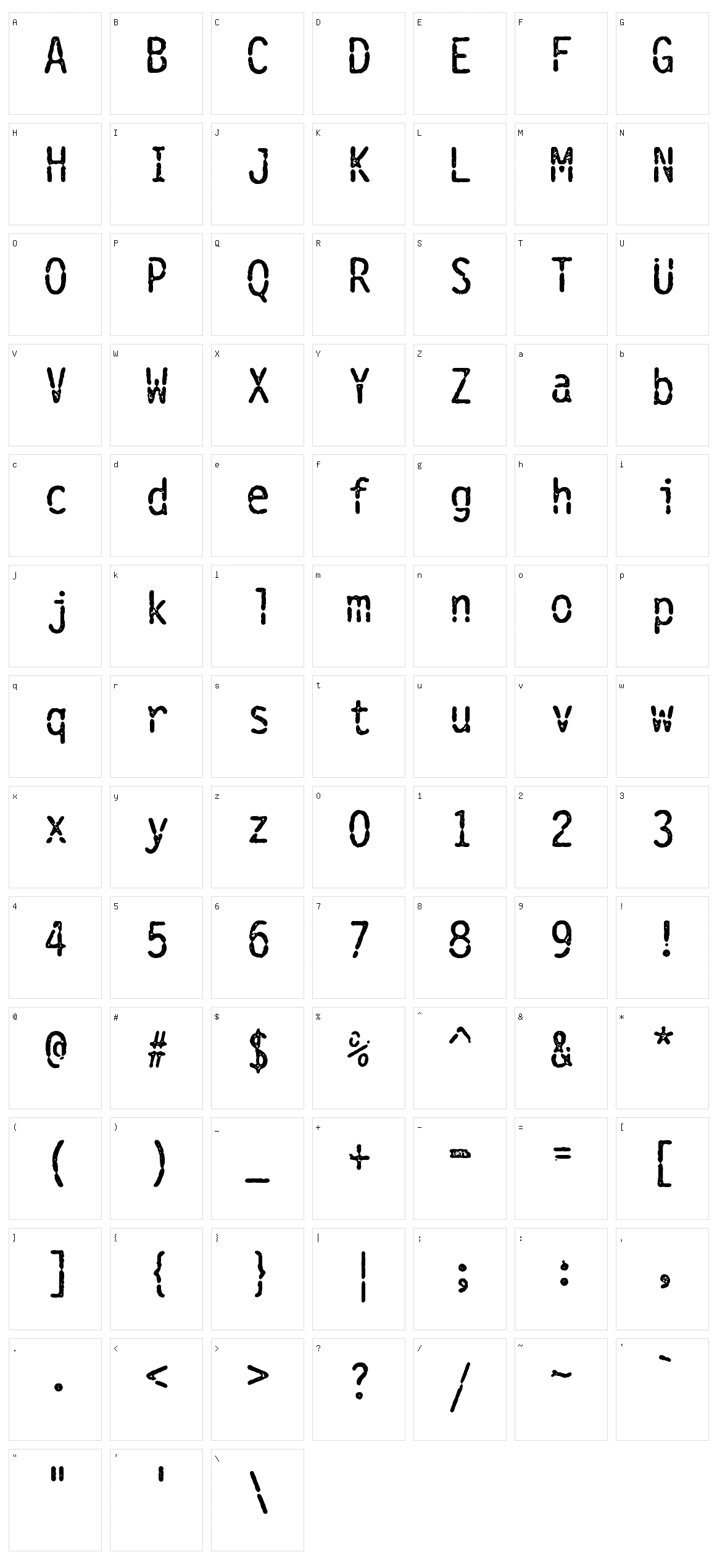
VANTHIAN RAGNAROK
Fans of mythology may recall that Vanth was a demoness of sorts, the Etruscan herald of death and the assistant to mortals in the process of dying, while Ragnarok was the end-of-the-world scenario in the Norse myths. It may seem a little silly to combine them, but fans of the formative history of role-playing games may recognize the reason for this font's name and appearance...
VANTHIAN RAGNAROK is a full-keyboard stressed typewriter font with a few of my usual extras tossed into the extended set; it's based on a modified version of a type that first appeared on electric typewriters in the late 1950s (and used for a number of role-playing games in the 1970s and very early 80s), with a heavier hyphen, a bolder period, and of course a bucket of acid and a bicycle chain. Enjoy!